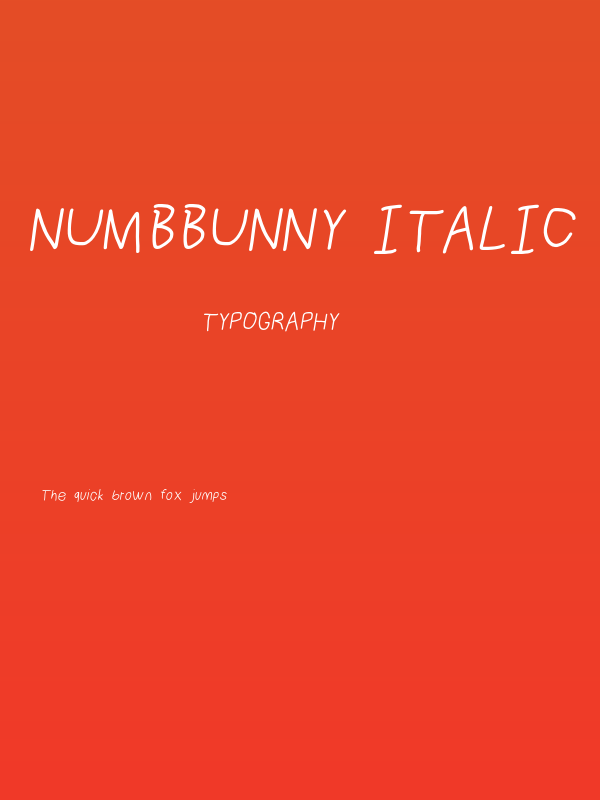
NumbBunny Italic Font
NumbBunny Italic Description
This font features a playful, handwritten style with a slight slant, giving it an informal and approachable appearance. The characters are rounded and smooth, with a consistent stroke width that maintains readability. The uppercase letters are slightly taller than the lowercase, and the numerals are clear and distinct. Special characters are designed to match the overall casual aesthetic, making them easy to integrate into various designs.
| Use Case | Headlines, Informal text, Branding |
| Proposed Projects | Ideal for children's books, casual invitations, greeting cards, and playful branding projects. |